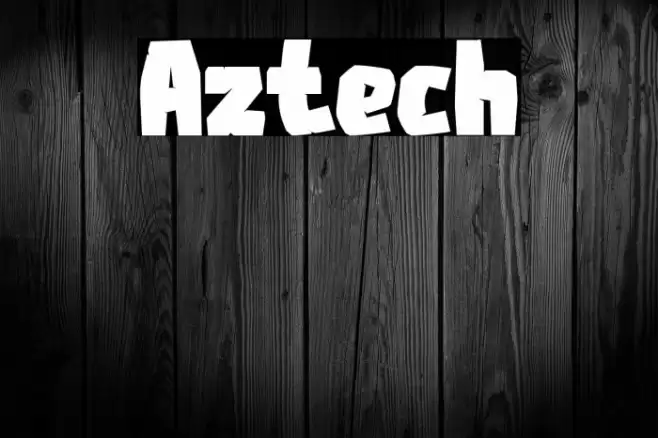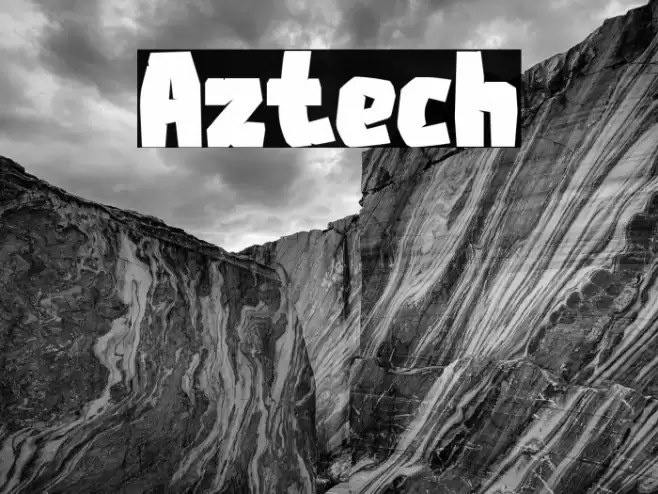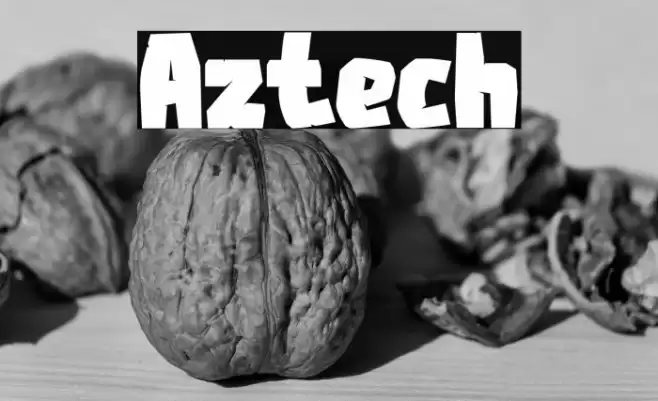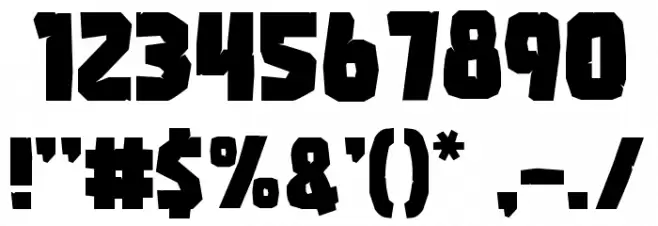
Aztech Font
Aztech Description
This font features bold, angular characters with a distinctly geometric and blocky appearance. The uppercase and lowercase letters maintain a consistent thickness, creating a uniform and cohesive look. The characters are slightly irregular, giving them a hand-crafted feel, which adds to their unique charm. The numbers and special characters follow the same stylistic approach, ensuring a harmonious design throughout. This font's boldness makes it highly visible and attention-grabbing, suitable for impactful designs. Its distinctive style is reminiscent of ancient or tribal motifs, lending an exotic and adventurous flair.
A bold, geometric font with a hand-crafted, tribal-inspired style from Uncategorized fonts.
- Proposed Projects: Ideal for posters, logos, video game titles, and any project requiring a bold, adventurous aesthetic.